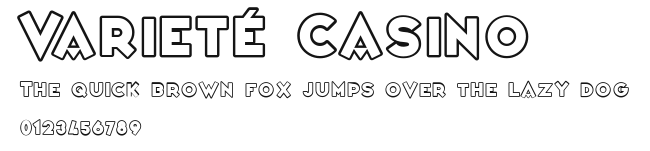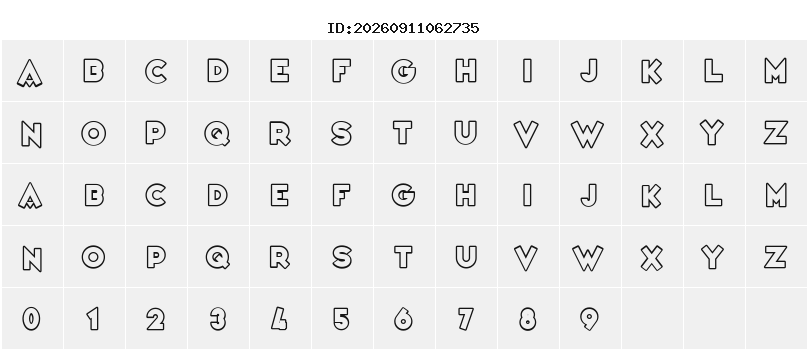
• Font Name: Varieté Casino
• Font ID: PeterWiegel: Varieté Casino: 2009
• Full Font Name: Varieté Casino
• Designer: Peter Wiegel
• Manufacturer: Peter Wiegel
About Varieté Casino.ttf
Varieté Casino.ttf is a modern, elegant sans-serif font designed for ultimate readability and visual harmony. Perfect for branding, headlines, web design, and print materials.